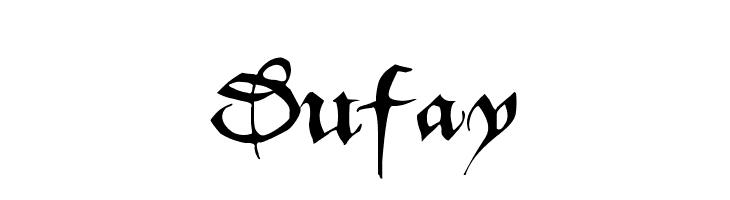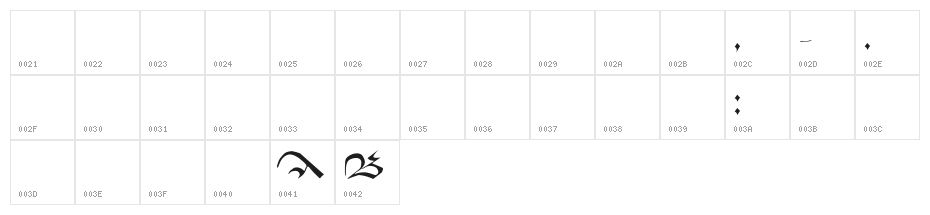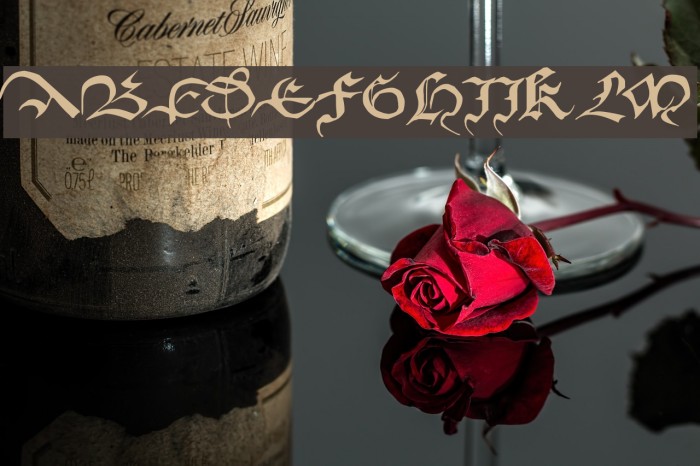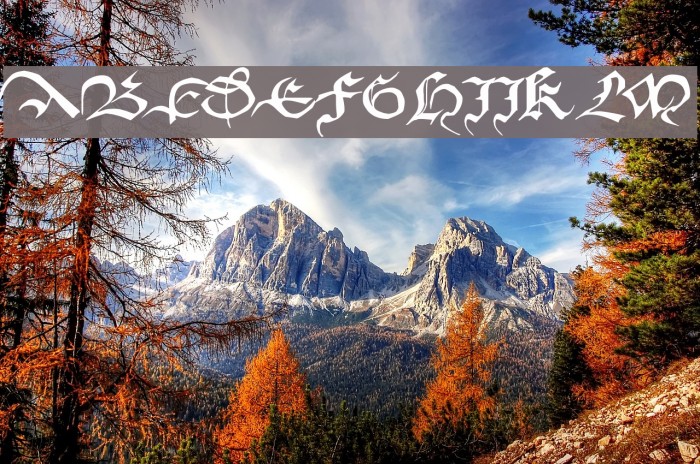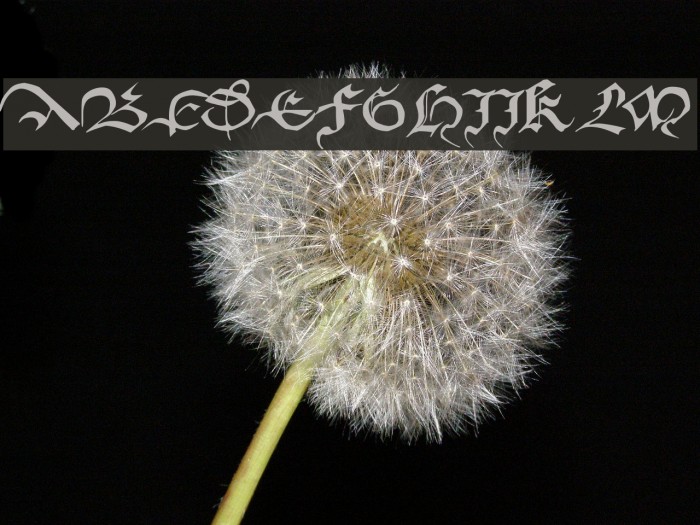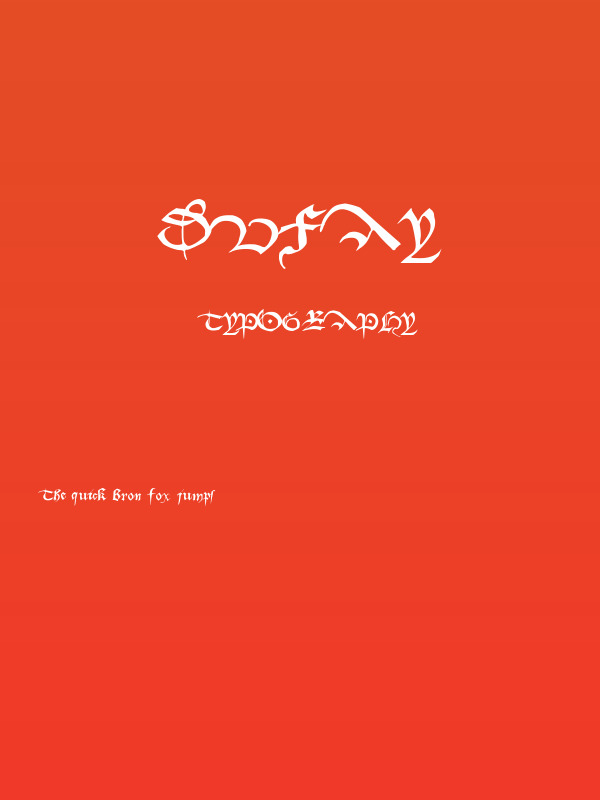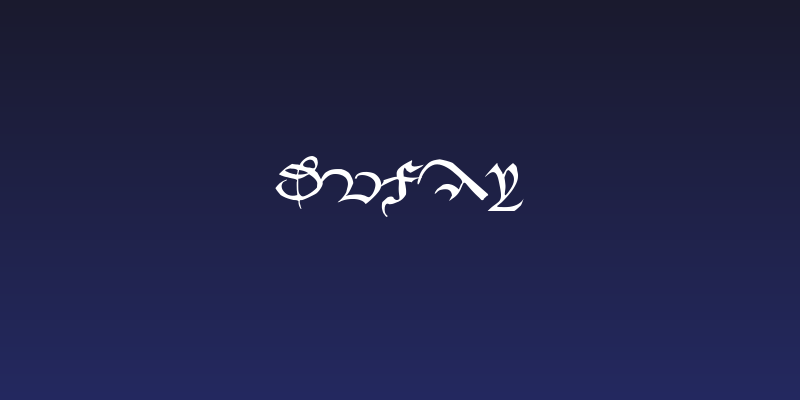
Dufay Font
Dufay Description
This font exhibits a striking and intricate design, reminiscent of medieval calligraphy. The characters are adorned with elaborate flourishes and sharp, angular strokes that create a sense of drama and elegance. The uppercase letters are particularly ornate, with sweeping curves and pointed edges that give them a regal appearance. The lowercase letters maintain the same level of detail, with a slightly more compact form. The numerals and special characters are consistent with the overall style, featuring similar decorative elements. This font is ideal for projects that require a historical or gothic aesthetic, offering a unique blend of artistry and readability.
| Proposed Projects | Ideal for historical documents, fantasy-themed designs, book covers, and decorative invitations. |